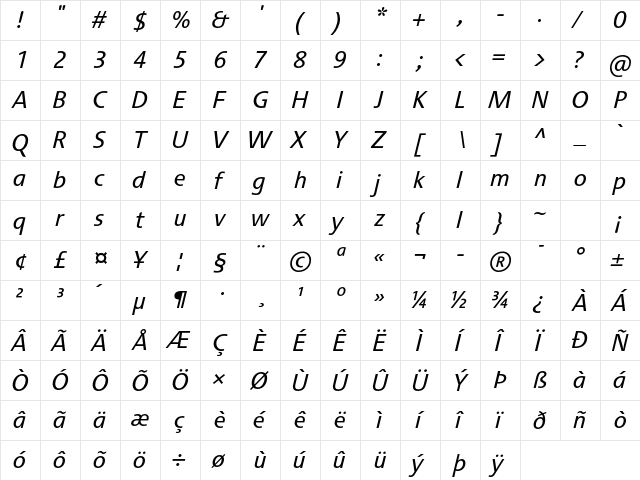
Cisalpin LT Std Italic Font Preview
| Foundry | Linotype GmbH |
| Designer | Felix Arnold |
Design Context for Cisalpin LT Std Typeface
Cisalpin LT Std takes a measured approach to typography — its balanced proportions and neutral character make it a reliable workhorse for both digital and print work. Its italic angle brings a sense of urgency and motion to the letterforms. The delicate stroke weight brings airiness and refinement to layouts.
Pro Tip: Try Cisalpin LT Std for annotation and caption copy alongside an upright companion — the contrast in angle creates a dynamic but ordered typographic system.